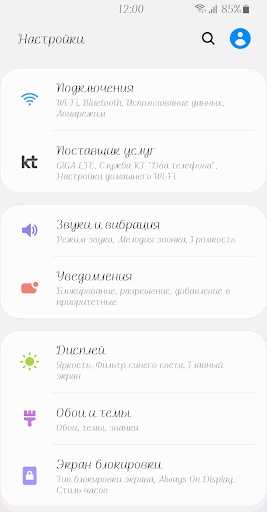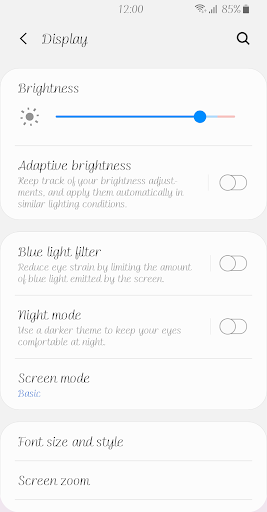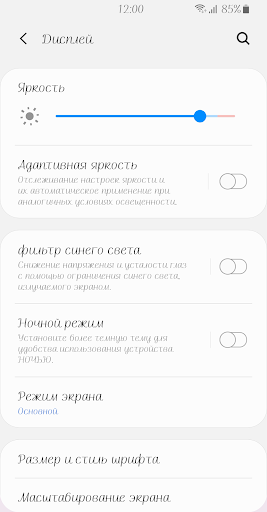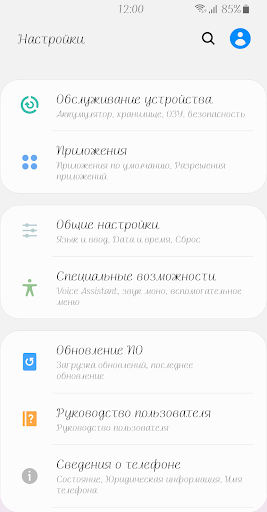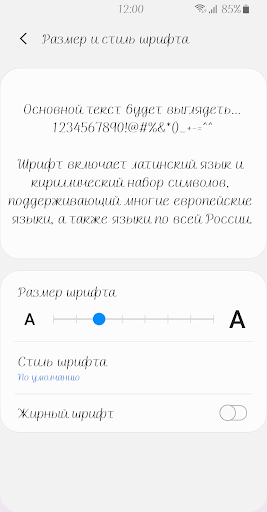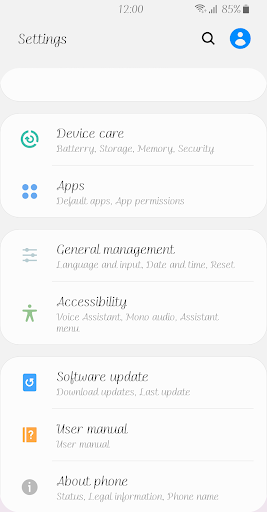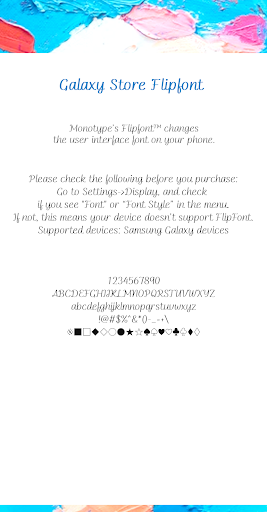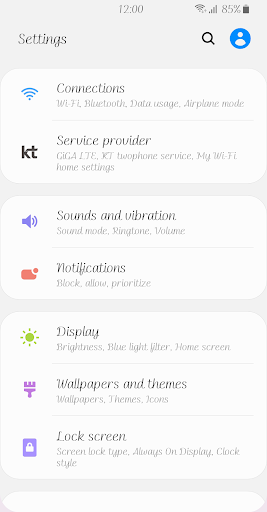
Fine Atelier
It is a pen style font that is not overly decorative.
The starting stroke is thick and powerful, and the stroke that continues smoothly is thin and smooth.
It shows a stable and comfortable appearance with an even shape and size.
When the warm spring sunlight gently tickles my head,
Colorful and free thoughts make me happy.
My own precious space, my own happy time. Atelier